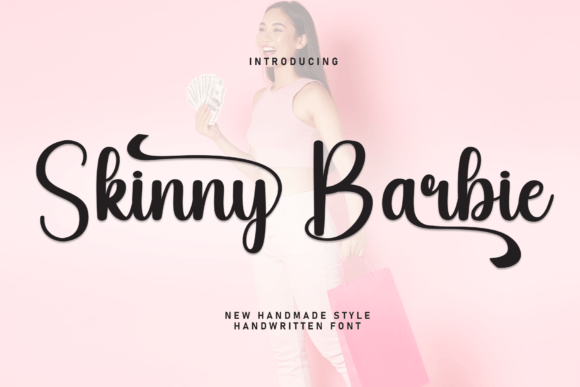
Introducing Skinny Barbie Font, the quintessential script font that evokes a sense of charm and elegance in your designs. Inspired by the timeless beauty of handwritten letters, Skinny Barbie captures the essence of sophistication and grace.
With its flowing curves and delicate lines, Skinny Barbie is perfect for creating logos, branding, and quotes that exude a touch of femininity and charm. Each meticulously crafted letter adds a unique and personal touch to your designs, making them stand out from the crowd.
Unleash your creativity with Skinny Barbie and elevate your designs to new heights. Perfect for crafters, graphic designers, and anyone looking to add a touch of elegance to their projects, this font will transform your ideas into captivating works of art.
Explore endless possibilities with Skinny Barbie. Use it to design stunning wedding invitations, heartfelt greeting cards, and eye-catching social media graphics. Its versatility knows no bounds, making it the perfect choice for a wide range of projects.
Don't let your designs go unnoticed. Choose Skinny Barbie and watch as your creations come alive with its timeless beauty. Join the ranks of creative visionaries who have discovered the power of this extraordinary font and elevate your designs to new heights of elegance and charm.